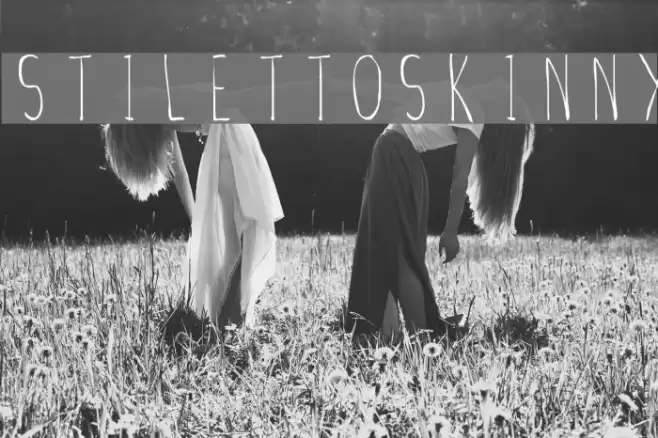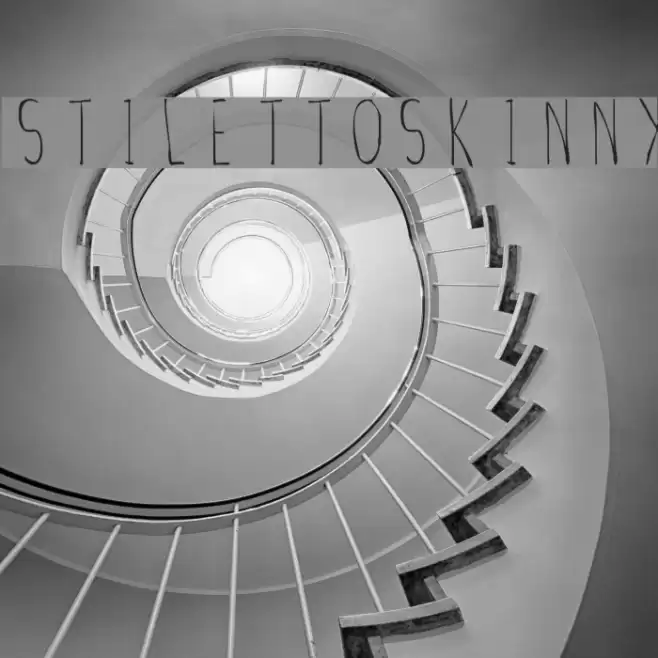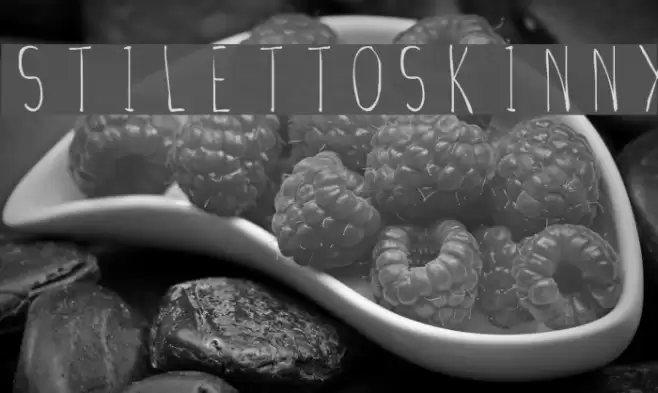
Stiletto Skinny Font
Stiletto Skinny Description
This font features a slender, elongated style with a hand-drawn appearance. The characters are tall and narrow, giving an elegant and slightly whimsical feel. The strokes are uneven, adding a touch of personality and charm. The font maintains a consistent height across all characters, with a playful yet sophisticated look. It is well-suited for creative projects that require a unique and artistic touch. The overall design is clean and minimalistic, making it versatile for various applications.
A slender, hand-drawn font with an elegant and whimsical style from Handwritten fonts.
- Proposed Projects: Ideal for invitations, greeting cards, artistic posters, and branding materials that require a personal touch.
- Use Case: Headlines, Artistic projects, Branding